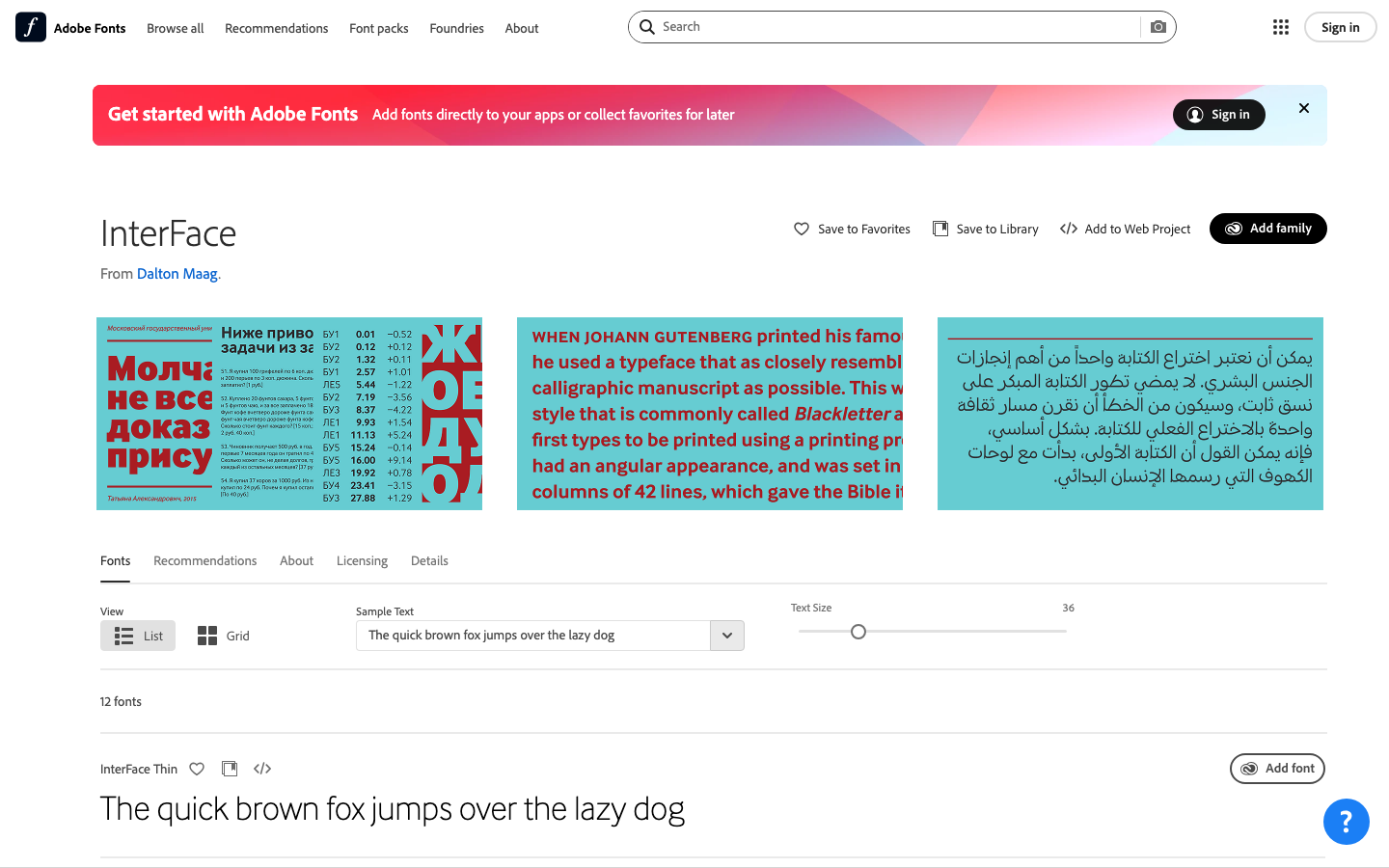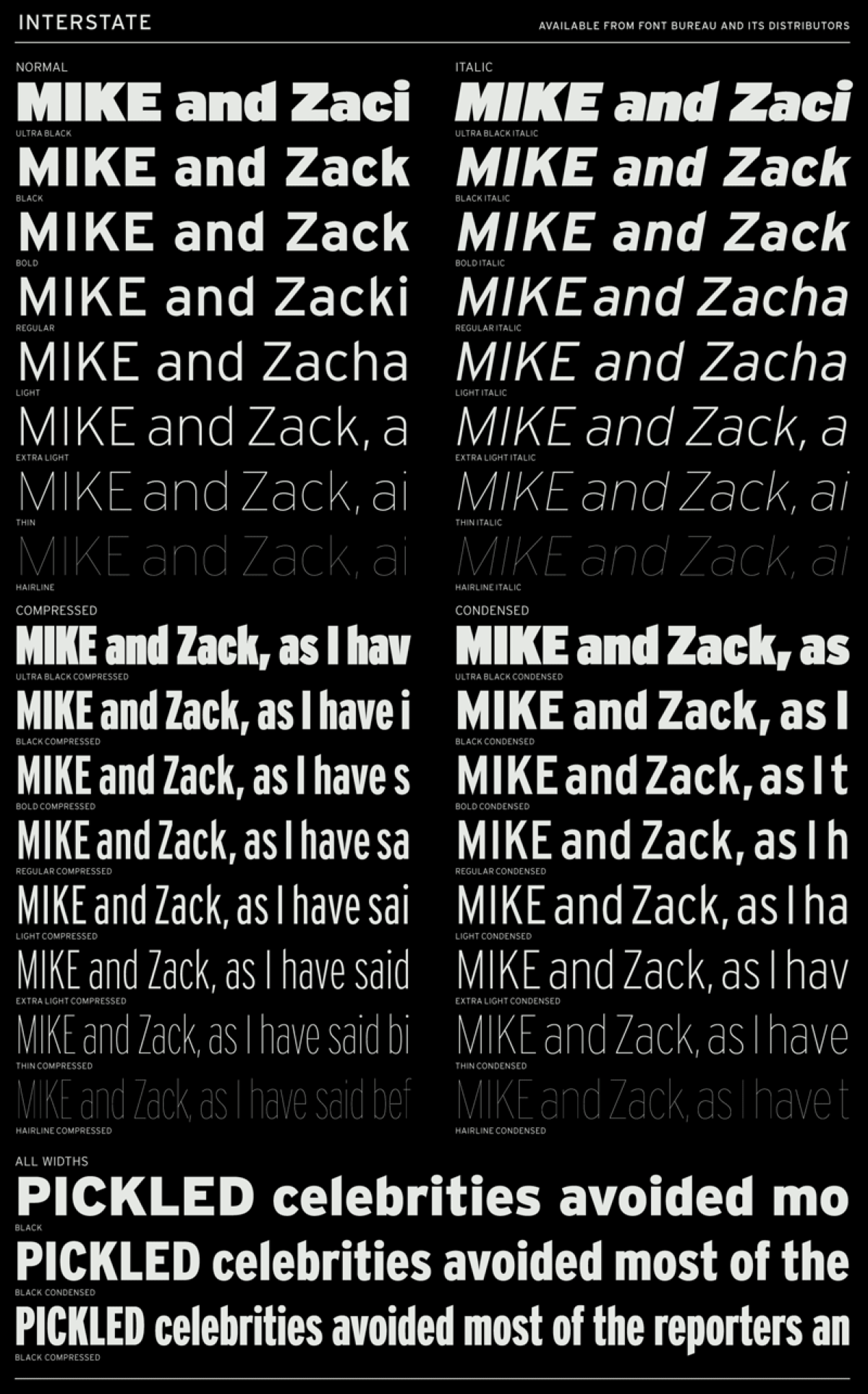
Interface vs Interstate
Interface and Interstate are both sans-serif typefaces sharing a readable foundation. The two share 74% design similarity overall. Compare which suits your Corporate project.
| Feature | Interface | Interstate |
| Source | Dalton Maag | Font Bureau |
Recommended: Interface
- humanist design character
- Suited for Ui
- From dalton-maag
Consider: Interstate
- Suited for Branding and Editorial
- From font-bureau